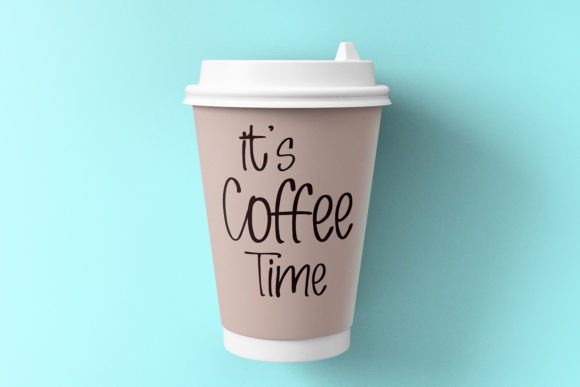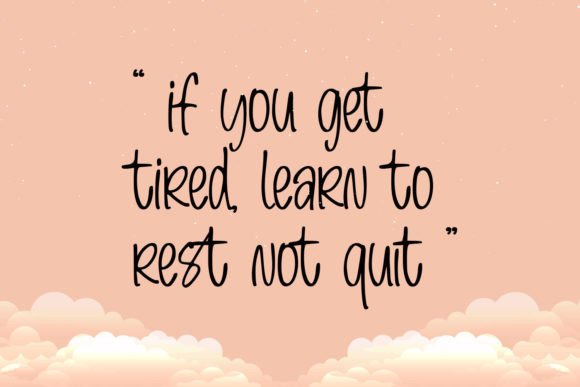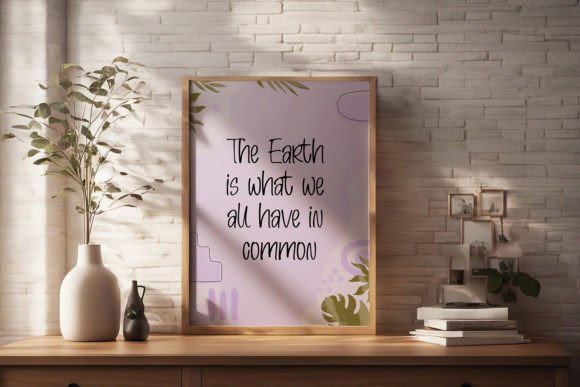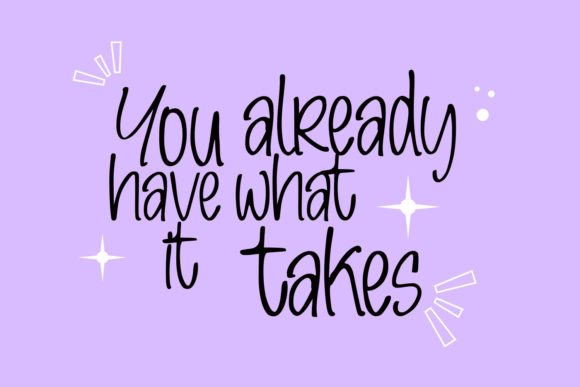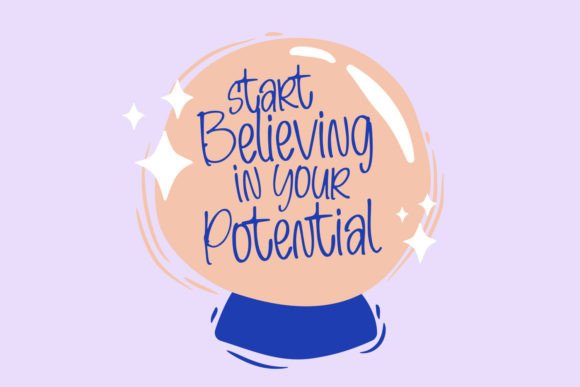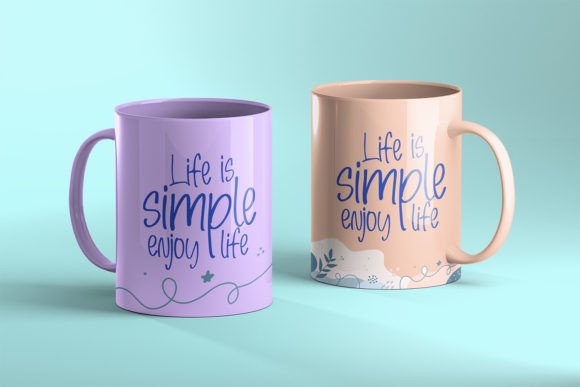
Introduction to Foldaway Tray Font
As designers, we’ve all been there – staring at a blank canvas, searching for the perfect font to bring our creative project to life. It’s that moment of clarity when the right font clicks, and our vision starts to take shape. For many, it’s a moment of serendipity, and for others, it’s the result of hours of searching through design resources. But what happens when you stumble upon a font that not only elevates your design but also adds a touch of elegance and sophistication?
Enter the Foldaway Tray Font, a delicate handwritten font that’s sure to capture the essence of your creative vision. With its thin weight and uneven letter proportions, this font is a design treasure trove waiting to be explored. Whether you’re working on a high-quality design project or simply looking for a free download to add some personality to your text, the Foldaway Tray Font is an invaluable resource that’s sure to elevate your design game.
With its transparent background and slender strokes, the Foldaway Tray Font is perfect for designers who crave a design resource that’s both sophisticated and unique. So why settle for an ordinary font when you can have a font that’s truly extraordinary? Dive into the world of Foldaway Tray Font and discover a new dimension of creative possibilities.
Key Features of Foldaway Tray Font
- Features a unique, modern design with a transparent background
- Includes a wide range of characters and glyphs for flexibility
- Perfect for use in logos, branding, and other creative projects where a modern, sleek look is desired
Honest Review: Foldaway Tray Font
I recently had the chance to work with the Foldaway Tray Font, and I’m excited to share my thoughts on this high-quality design resource. As a designer, I’m always on the lookout for unique and creative fonts to elevate my projects.
Here are some of the things that worked well for me:
- ✨ High-quality design: The font is well-designed and looks great on a transparent background, making it perfect for creative projects that require a clean and minimalist aesthetic.
- ⚠️ Limited character set: The font only includes a limited set of characters, which may not be suitable for projects that require a full range of languages or special characters.
- ⚠️ Not suitable for large-scale text: The font may not be the best choice for large-scale text, as it can become difficult to read at larger sizes.
Overall, I’m impressed with the Foldaway Tray Font, and I think it’s a great addition to any designer’s toolkit. With its high-quality design, easy use, and free download, it’s a great resource for creative projects. However, be aware of its limitations, and use it wisely.
Tips for Getting the Most Out of Foldaway Tray Font
Experiment with different font sizes and colors to create a unique look. Use the transparent background to layer text and graphics for a visually appealing design. Combine Foldaway Tray Font with other high-quality design resources to create a stunning creative project.
Foldaway Tray Font is perfect for use in branding, marketing materials, and creative projects. Its unique design makes it ideal for use in digital and print media. Whether you’re a professional designer or a hobbyist, this font is a great addition to your design toolkit.